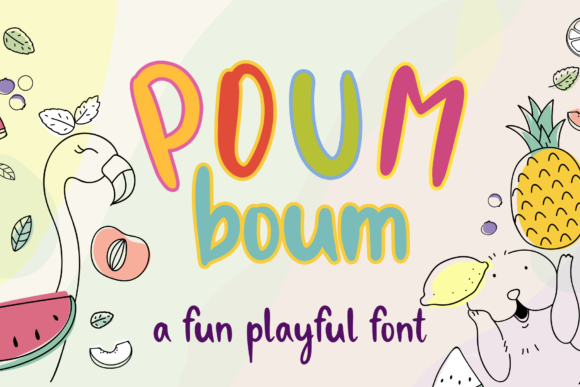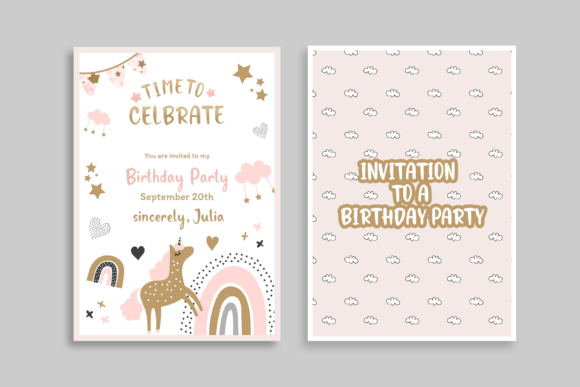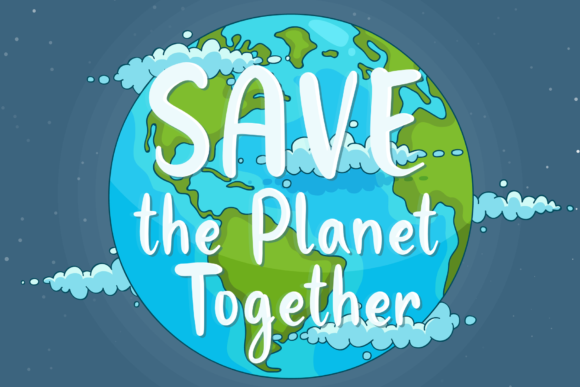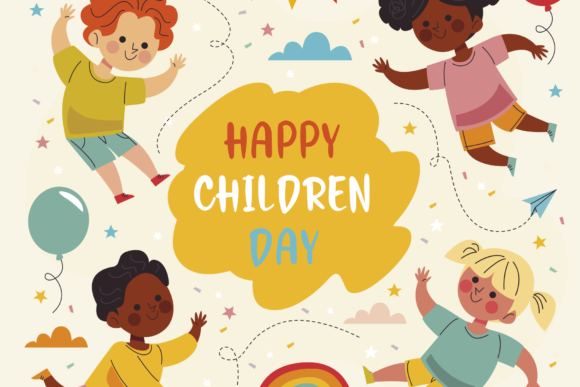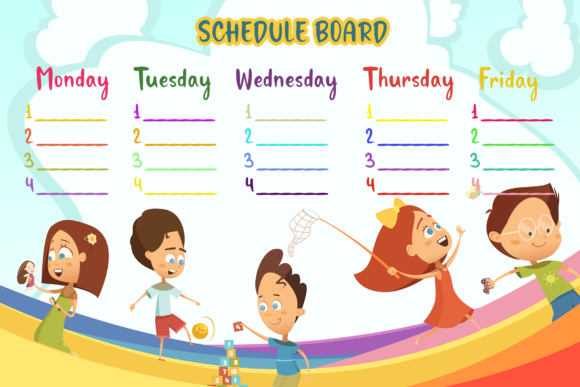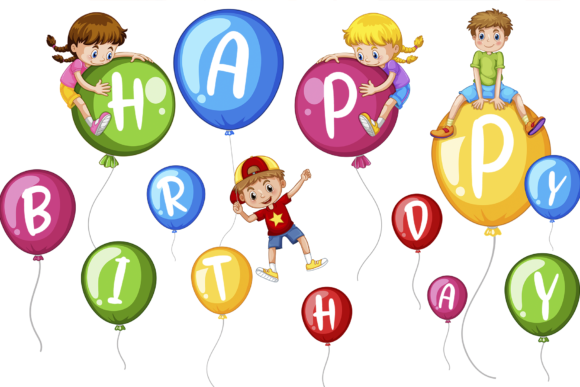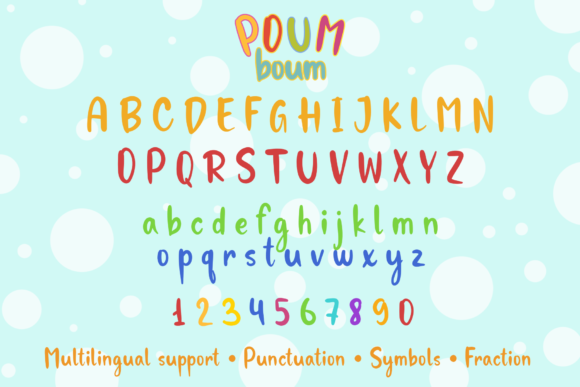
Poum Boum Font
About Poum Boum Font
Poum Boum is a fun, playful and cute handwritten font. It embodies playfulness and authenticity and is the perfect choice for any children activity or school project.